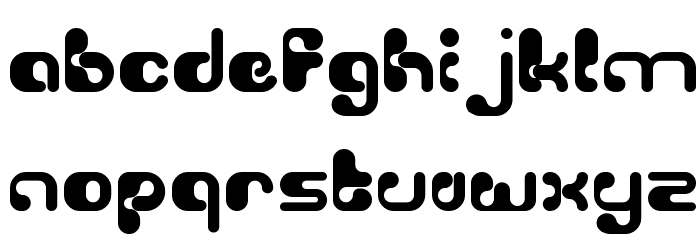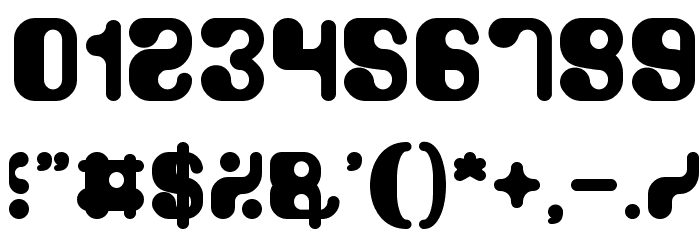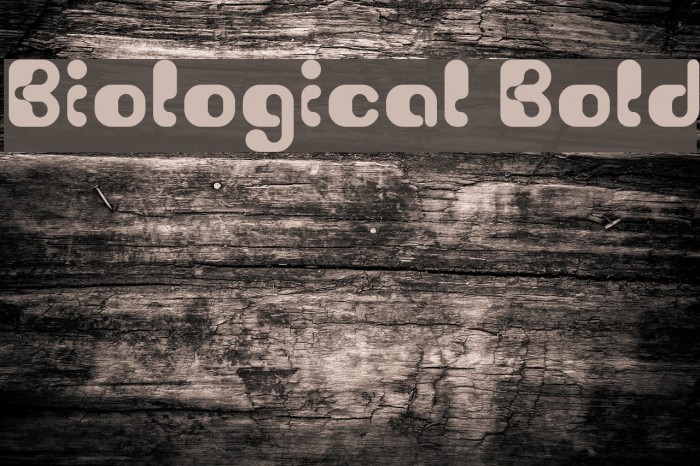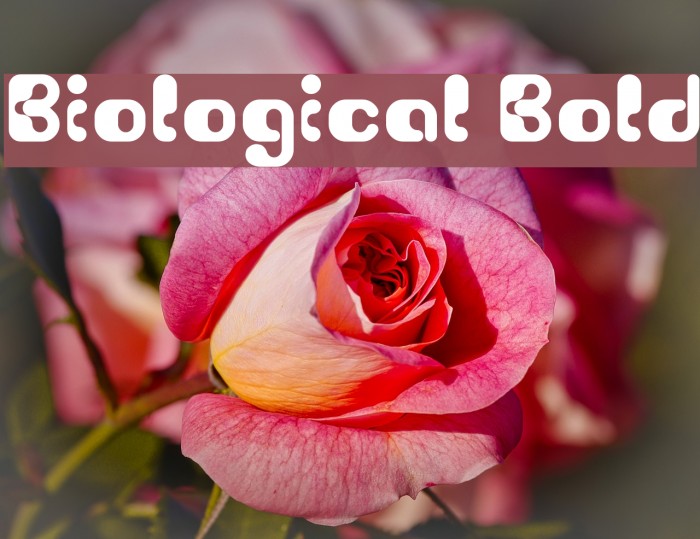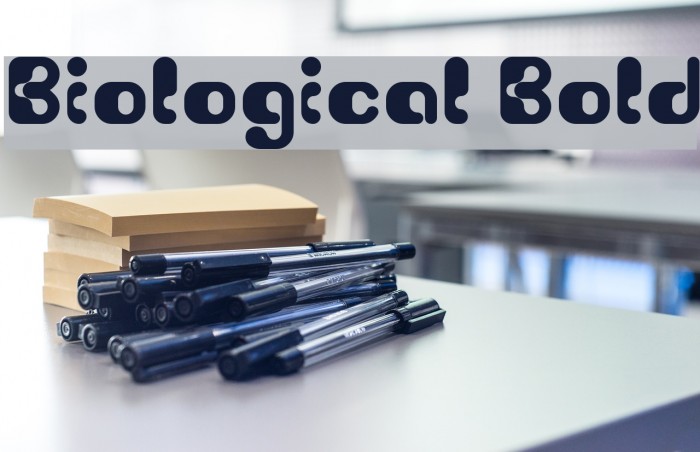
Biological Bold Font
This font features a bold and rounded design with a unique, organic feel. The characters are thick and have a playful, almost bubbly appearance, reminiscent of biological forms or cellular structures. The rounded edges and consistent stroke width give it a cohesive look, while the slight variations in character shapes add a touch of whimsy. The font maintains a modern aesthetic, suitable for creative and unconventional projects. Its distinct style makes it stand out, ideal for capturing attention in headlines or logos.
A bold, rounded font with an organic, playful design.
- Proposed Projects: Ideal for branding, logos, posters, and creative design projects that require a bold and distinctive look.